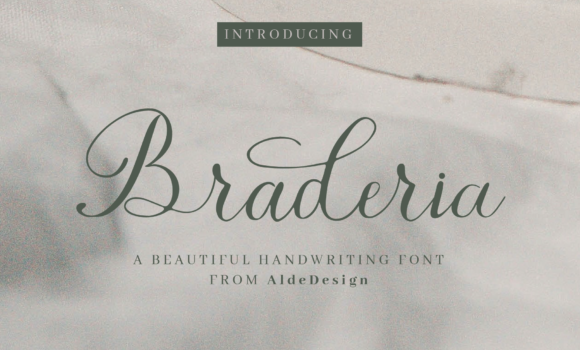
Braderia Script Font – Free Download Introduction to Braderia Script Font Braderia Script feels equally charming and elegant. 📸 Preview Gallery 6 images 📌 Product Name Braderia Script Font 👤 Author aldedesign 📂 Category Explore ⬇️ Download Braderia Script Font